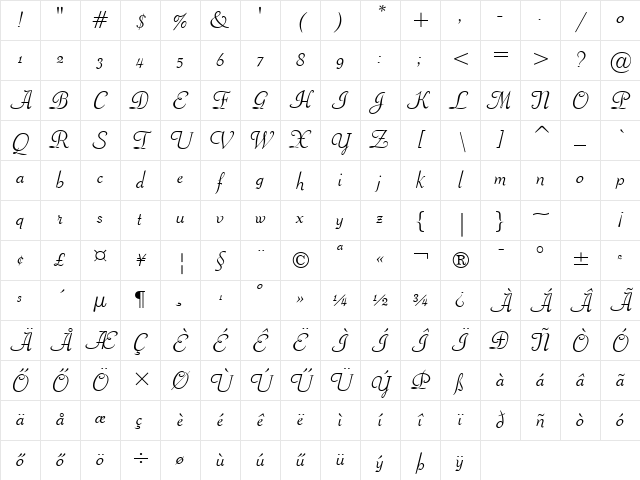
Piranesi-Italic HU Normal
Design Context for Piranesi-Italic HU
Piranesi-Italic HU is a composed and adaptable typeface that performs quietly and consistently across a wide range of design contexts. The slanted form adds forward momentum and visual energy.